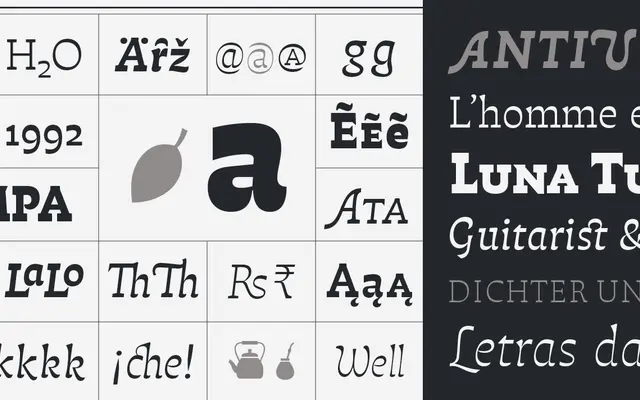
Atahualpa
Pampatype · Alejandro Lo Celso · 2017
A reverse contrast slab serif by Alejandro Lo Celso, drawn in the spirit of Argentinian folk musician Atahualpa Yupanqui, balancing sturdy structure with delicate, warmly drawn letterforms.
Designed by Alejandro Lo Celso and released in 2017, the family spans six weights from Blanca to SúperNegra, each with an italic, across 12 styles in total. The reverse contrast treatment is handled with restraint, giving the typeface an informal, handcrafted quality that works in long reading as readily as in poster and logo settings. It was named a Typographica Favourite of 2017 and received a Certificate of Excellence at the Tipos Latinos 8th Biennale in 2018.
Pampatype classify it as a slab serif with reverse contrast, combining sturdy structure with delicate drawing qualities; the hybrid character places it firmly in the slab category with an expressive, display-capable personality.